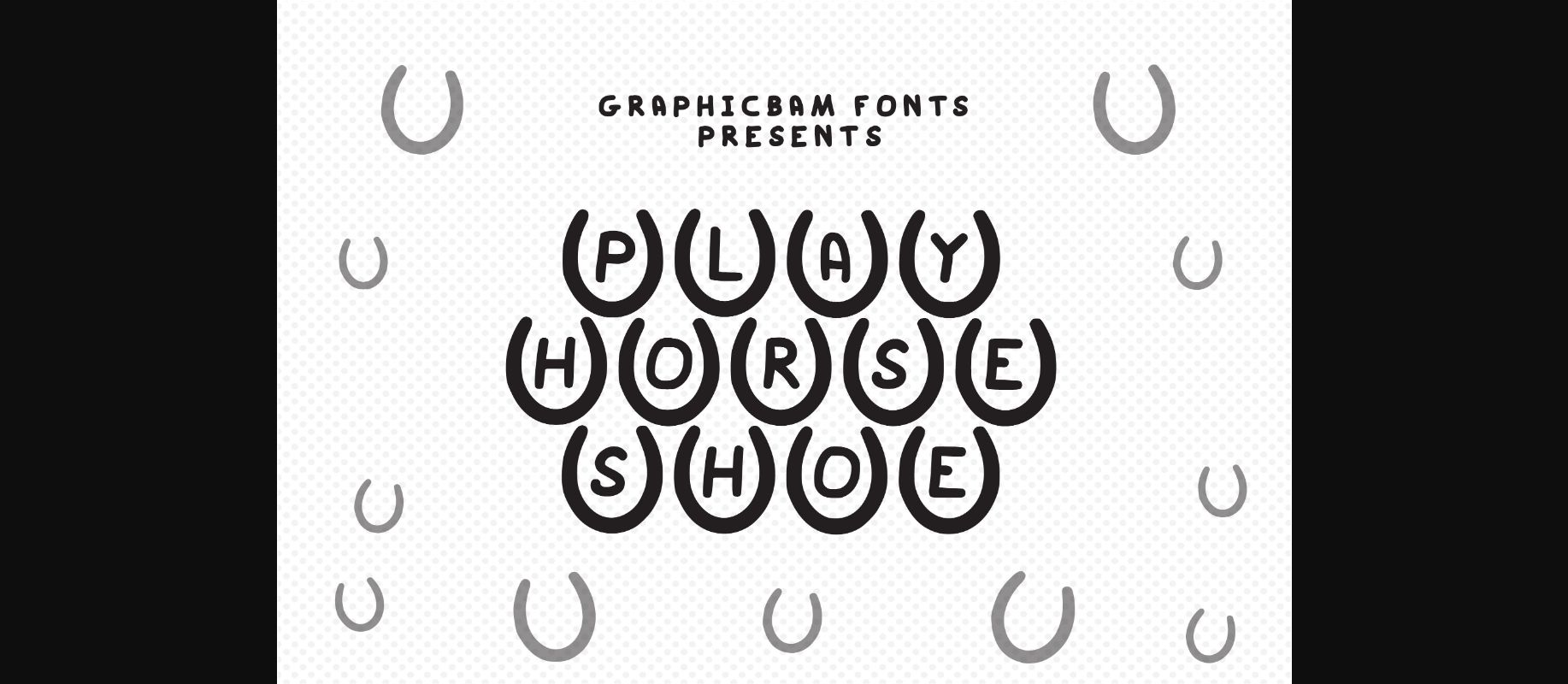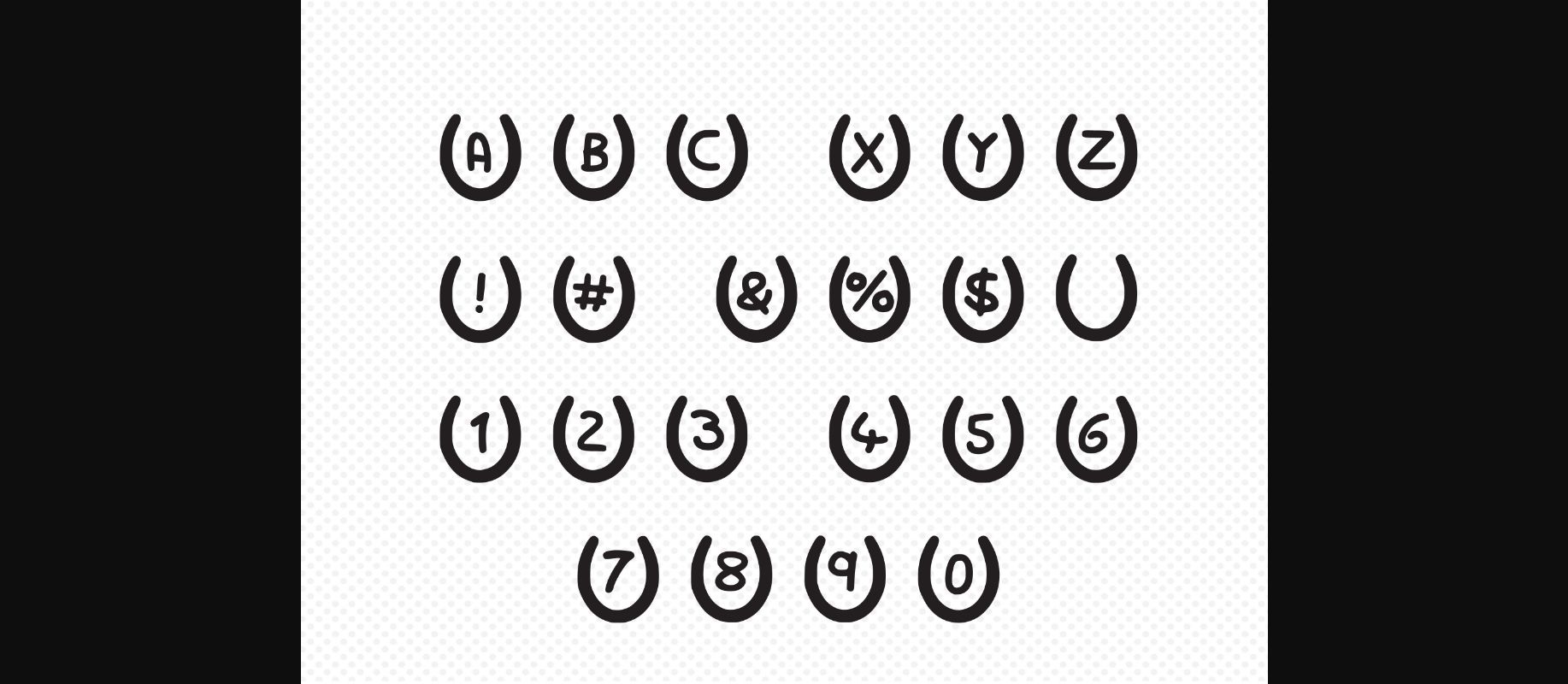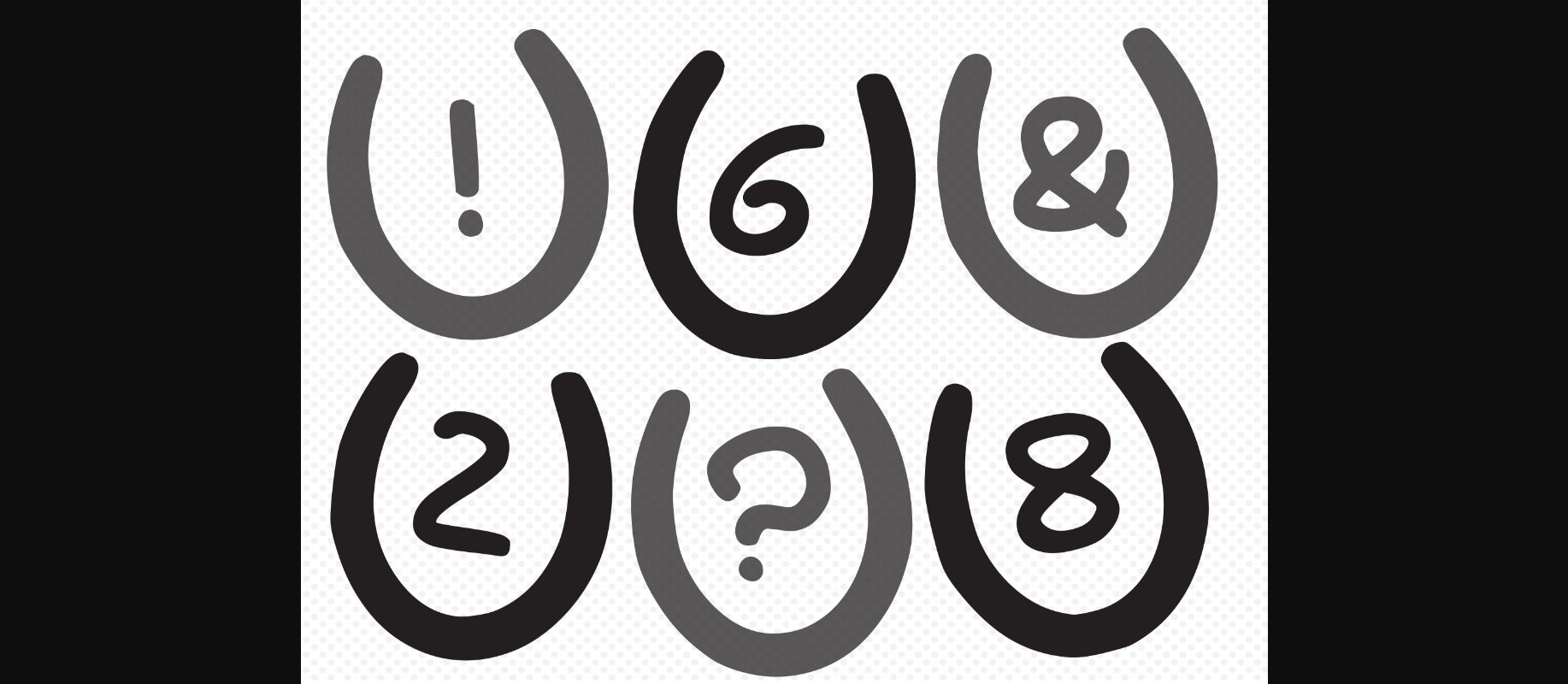
Play Horse Shoe Font
About Play Horse Shoe Font
Equestrian projects will look even better with Play Horse Shoe – a lovely decorative font created especially for horse-related projects. It also works well for items that need a lucky accent!